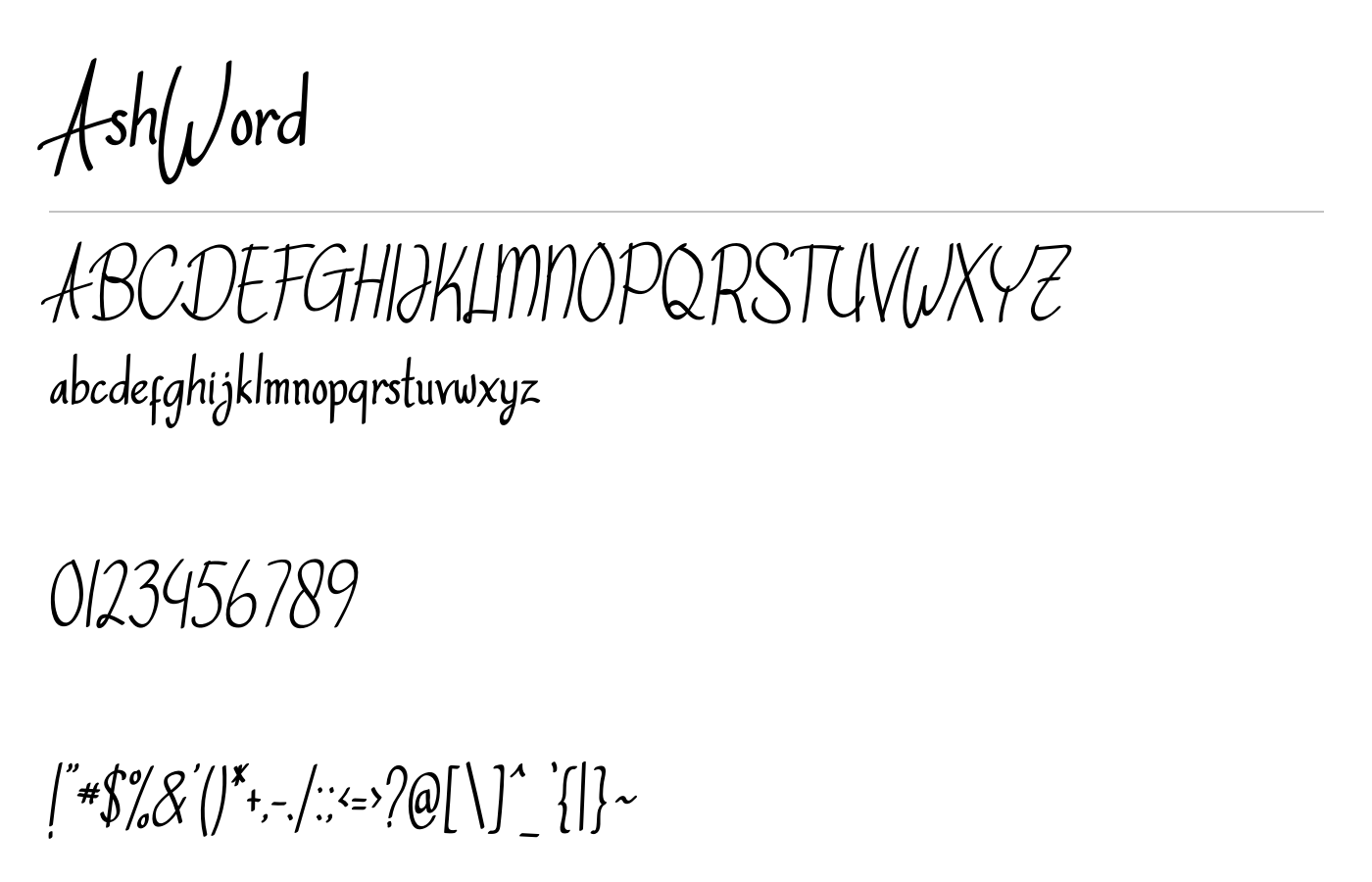
AshWord is a slender, handwritten script font with a casual and slightly playful feel, characterized by its tall, narrow letterforms and smooth, flowing strokes. Its light weight and informal style make it ideal for creative projects, personal branding, and designs that seek a friendly, approachable, and expressive touch. The font works well in headlines, logos, and social media graphics where a unique, hand-crafted look is desired.
AshWord Font
About AshWord Font